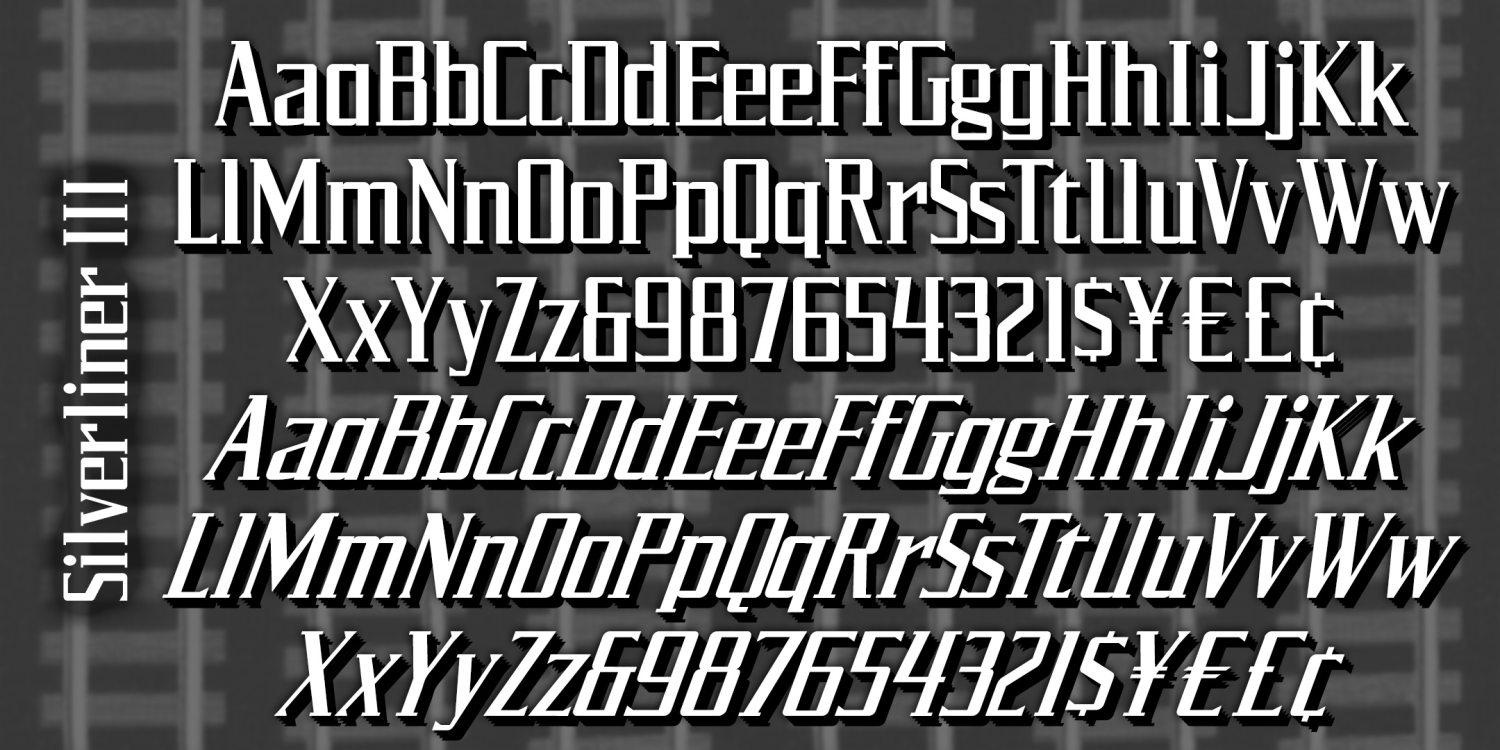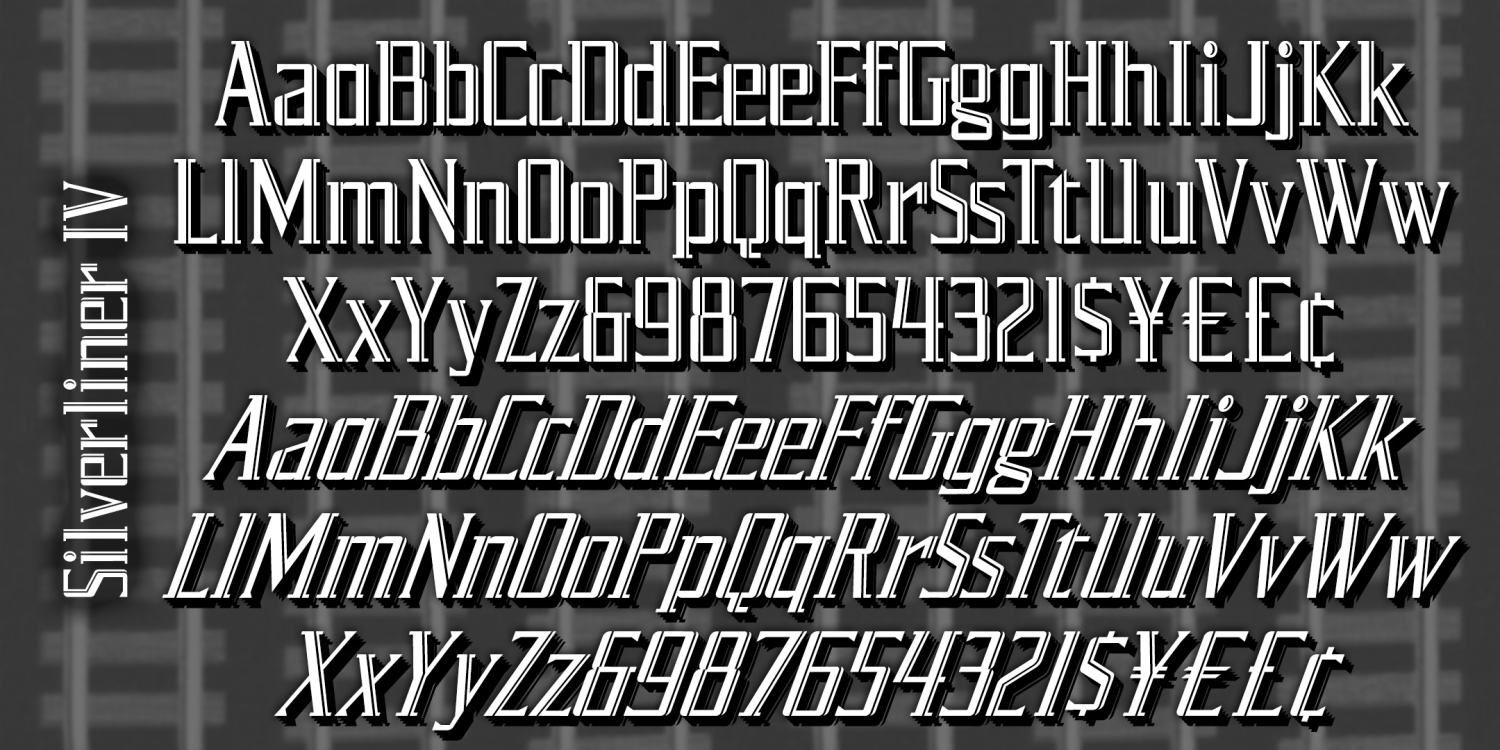
Silverliner I-IV
SILVERLINER I-IV is bold and angular with subtle curves, suggesting the smooth, sleek feel of vintage rail transport. The newer companion fonts feature sharp inlines that add a touch of elegance. Set of eight fonts with two widths, in Regular and Oblique, with and without the inlines.
Originally inspired by the opening titles of Alfred Hitchcock's 1951 "Strangers on a Train."